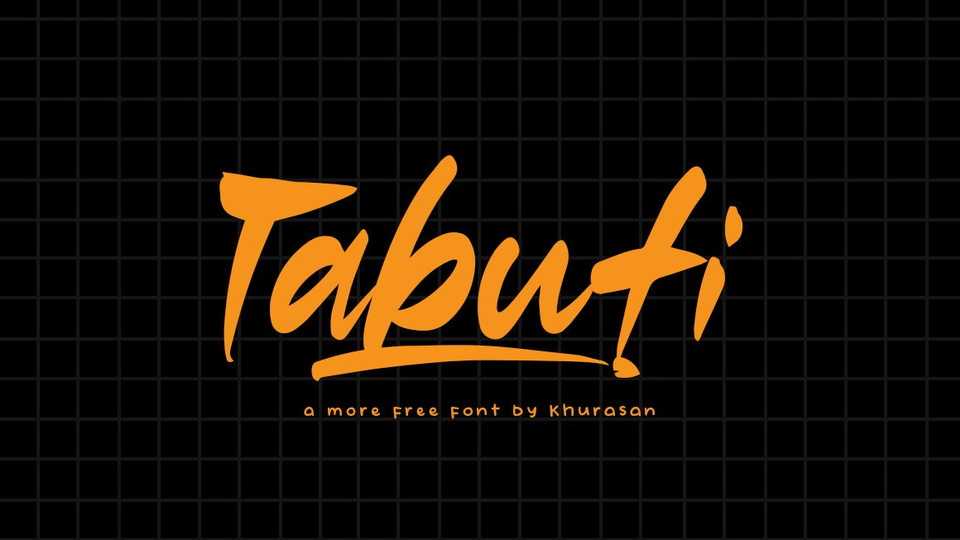
Download Tabuti font, a dynamic and energetic brush calligraphy typeface. Tabuti font is perfect for posters, logos, magazines, book covers, banners, and many more.